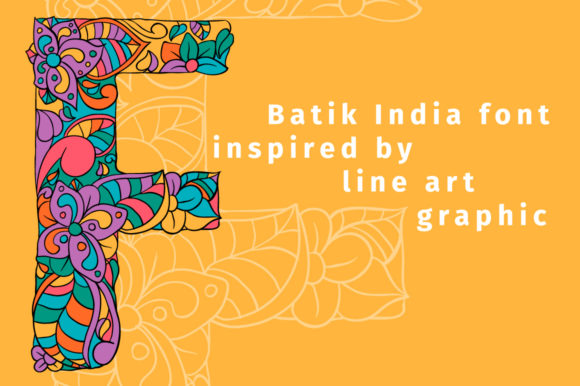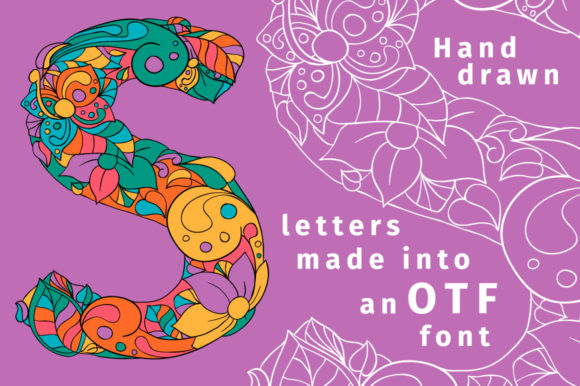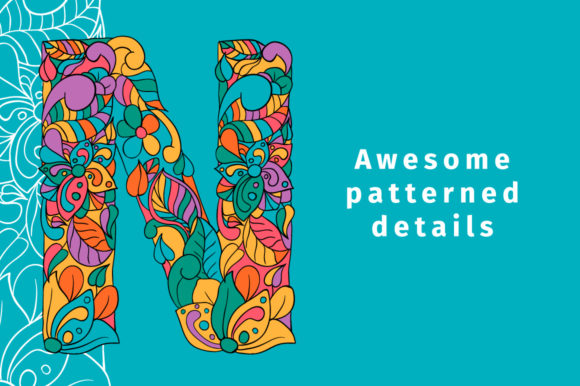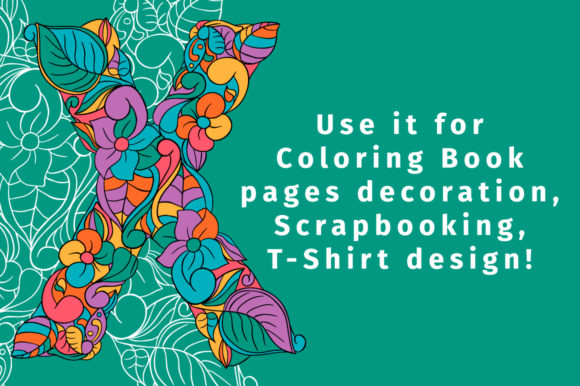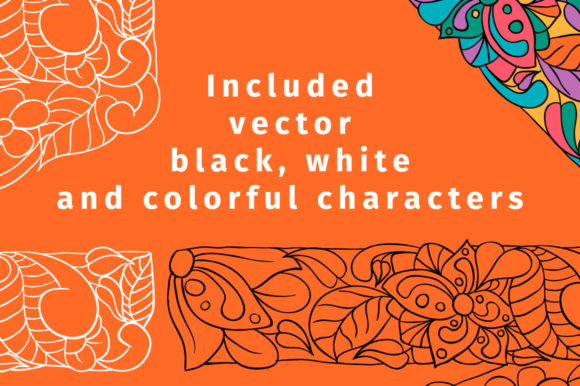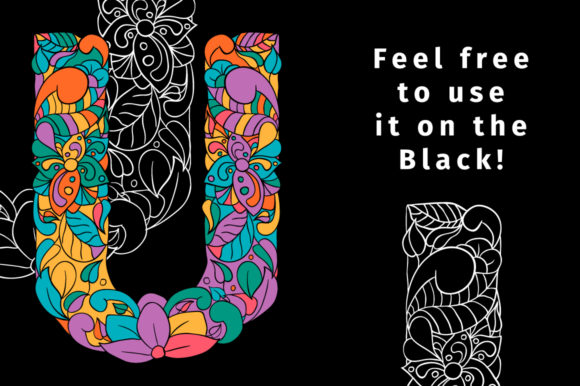
Adding a Touch of Indian Charm to Your Designs
Have you ever found yourself rummaging through a treasure trove of fabric patterns, vintage textiles, and colorful trinkets, searching for the perfect inspiration for your next creative project? That’s exactly what happened to me last weekend, and it sparked an idea that I just couldn’t shake off.
As I delved deeper into the world of Indian art and craft, I stumbled upon the enchanting Batik India Font, a vibrant and charming typeface that’s sure to add a lovely twist to any design. This colorful font is a treasure trove of Indian heritage and culture, waiting to be unleashed on your next project. Whether you’re a seasoned designer or a hobbyist, the Batik India Font is a valuable addition to your creative arsenal, offering a unique and eye-catching way to express yourself.
Batik India Font Key Features
- Font Family: Batik India is a unique font family that combines traditional Indian script with a modern twist, offering a wide range of styles and weights.
- Unique Characteristics: The font features intricate patterns and designs inspired by traditional Indian art, making it a standout choice for designers looking to add a touch of cultural authenticity to their work.
- Language Support: Batik India font family supports a range of Indian languages, including Hindi, Marathi, and Gujarati, as well as Latin and other international languages.
Designer Review: Batik India Font
At first glance, the Batik India Font caught my attention with its unique and eclectic feel. ✨ The font’s combination of traditional Indian script elements and modern design sensibilities makes it a standout in my opinion.
Here are some things that work well for me:
- ✨ The font’s character set is extensive, covering a wide range of languages including Hindi, Urdu, and Bengali.
- ✨ The font’s bold and italic styles are well-designed and add a lot of versatility to the overall typeface.
- ✨ The font’s ligatures and ornaments are a nice touch, adding a level of sophistication and authenticity to the design.
However, there are a few limitations that I’ve encountered:
- ⚠️ The font’s regular weight can appear a bit too thin at small font sizes, which may not be ideal for certain design applications.
- ⚠️ The font’s spacing and kerning could be improved in some areas, particularly when combining multiple scripts or languages.
Overall, I’d say that Batik India Font is a solid choice for designers looking to add a touch of Indian flair to their projects. While it may not be perfect, its unique style and extensive character set make it a valuable addition to any design toolkit.
Getting the Most Out of Batik India Font
For optimal results, use Batik India Font in combination with other traditional Indian design elements, such as intricate patterns and vibrant colors.
Experiment with different font sizes and styles to create a visually appealing and balanced design.
Batik India Font is commonly used for:
- Traditional Indian designs and patterns.
- Cultural and heritage-themed designs.